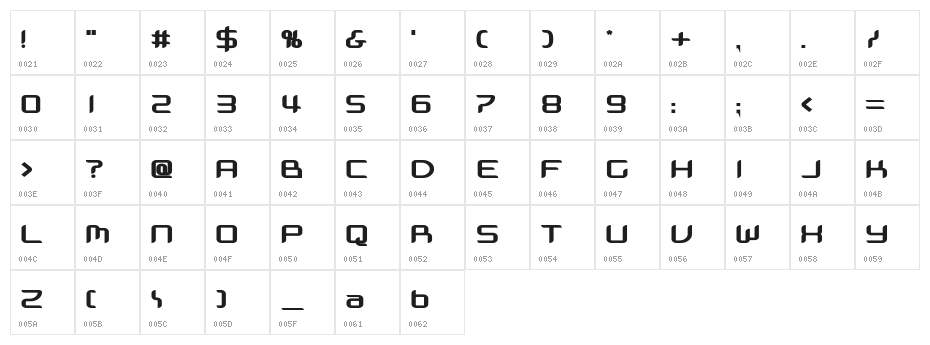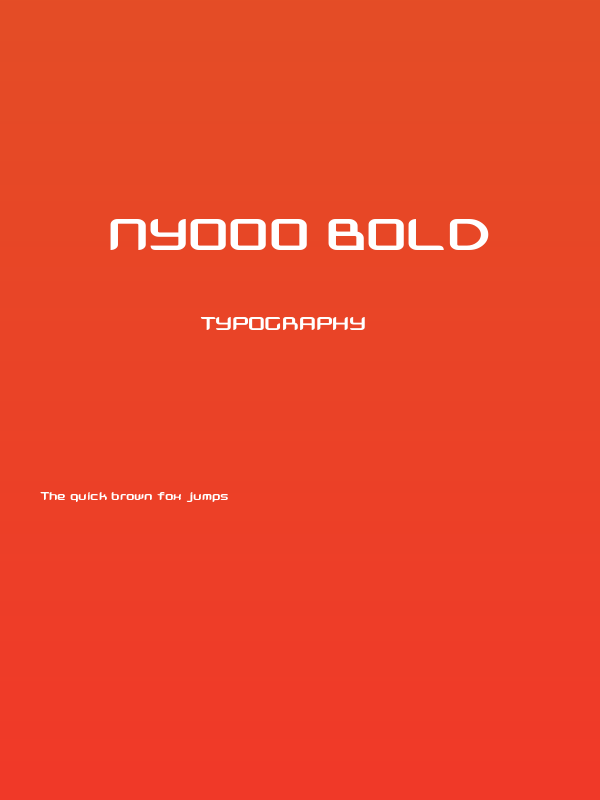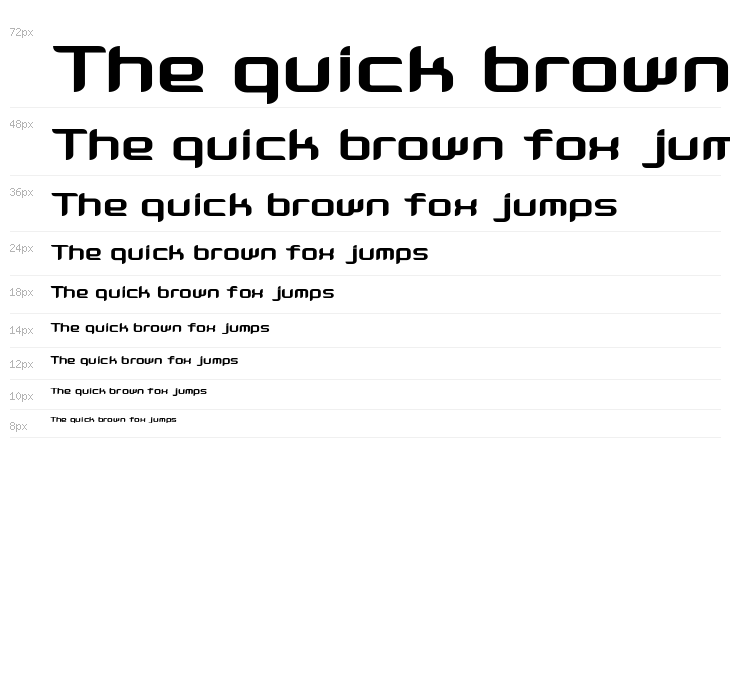
Nyooo Bold Font
Nyooo Bold Description
This font features a modern, geometric style with rounded edges and a bold presence. The characters are uniform in width, creating a cohesive and structured appearance. The uppercase and lowercase letters maintain a consistent height, contributing to a balanced look. The numerals and special characters are designed with the same geometric precision, ensuring readability and visual harmony. The font's clean lines and contemporary aesthetic make it suitable for various design applications.
| Use Case | Headlines, Logos, Digital Interfaces |
| Proposed Projects | Ideal for technology branding, modern advertising, digital interfaces, and futuristic designs. |